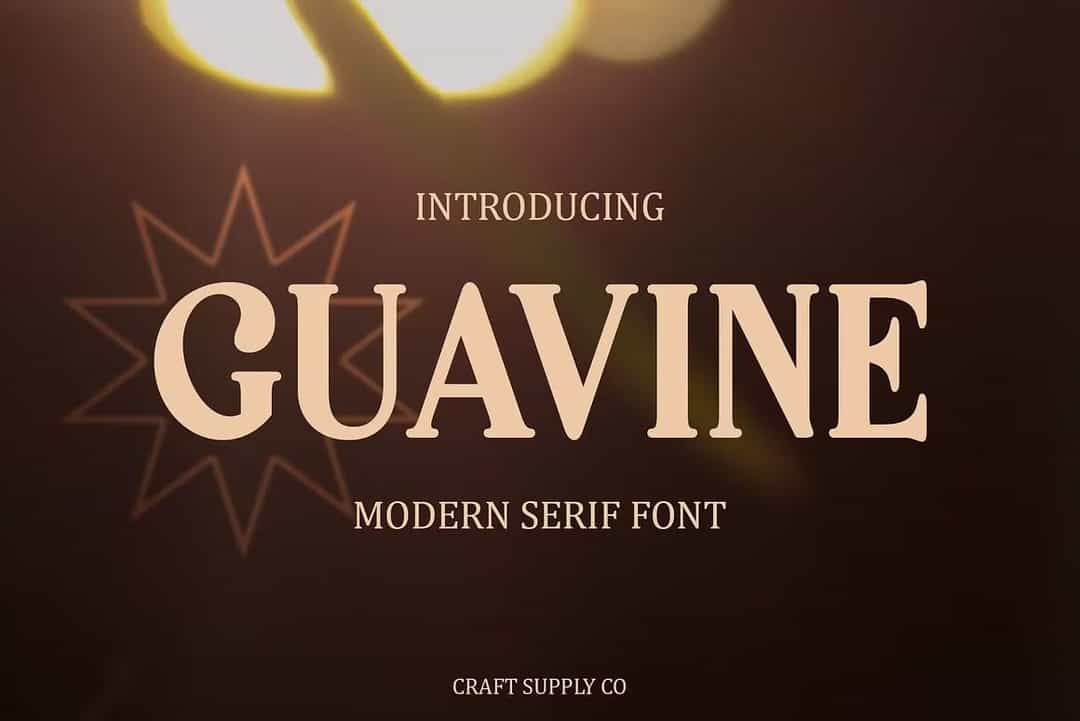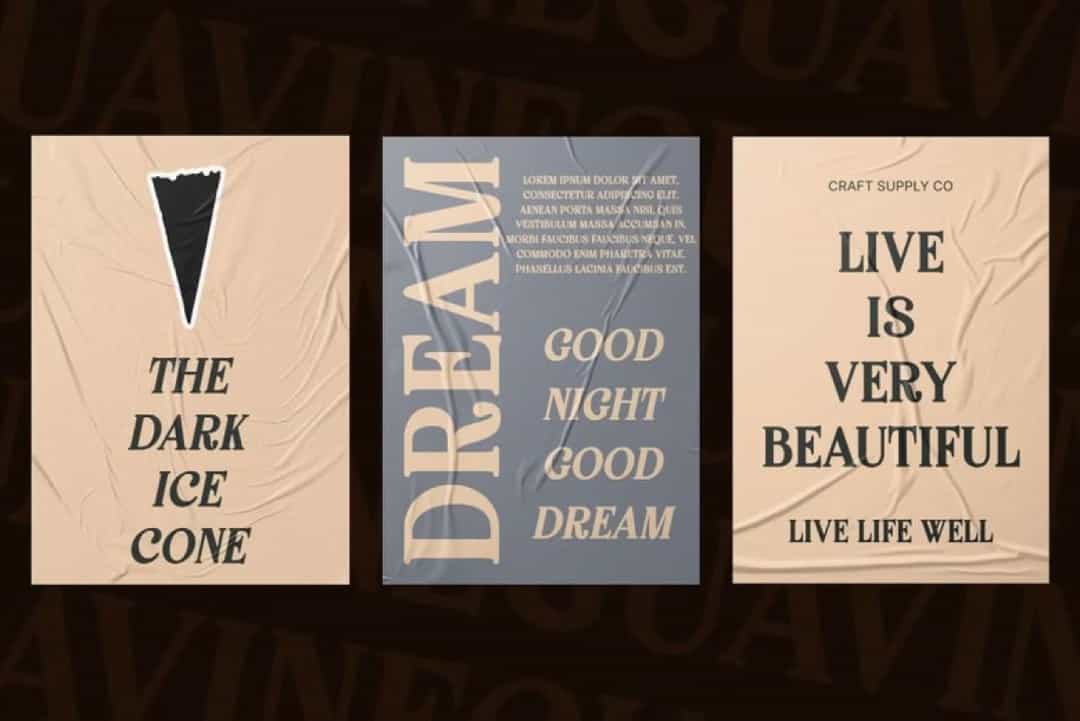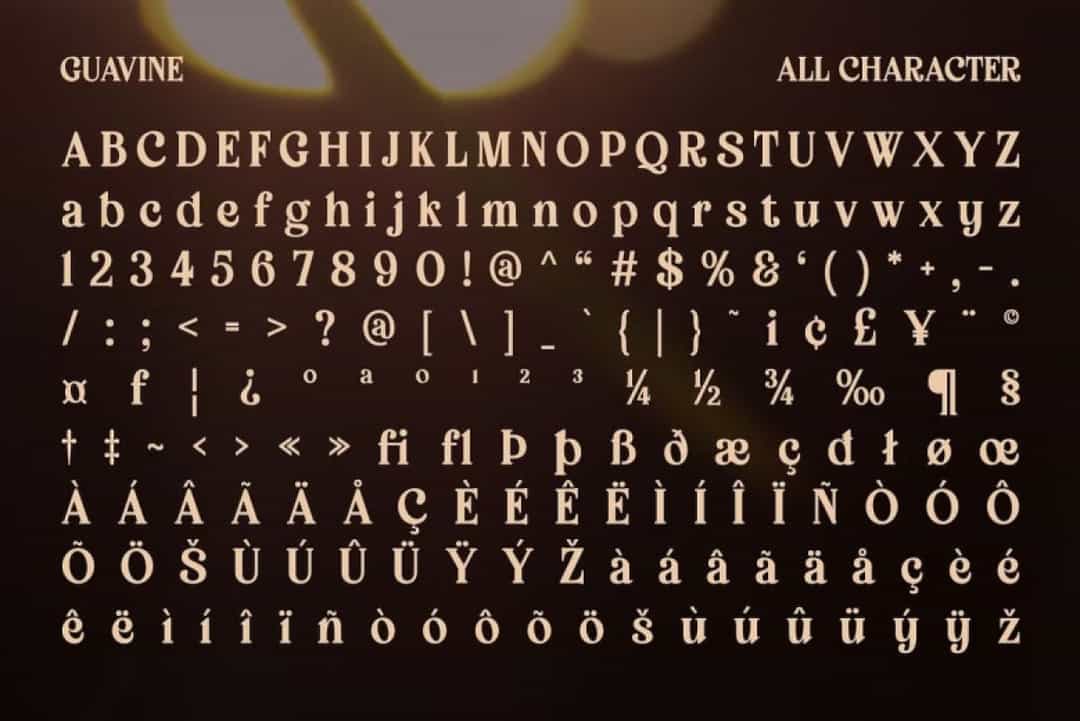
Discover Guavine Font, part of the Serif collection—a versatile and unique font perfect for adding a personal touch to your projects. Download it for free and enjoy crafting designs with style, from invitations to social media posts. This font is available exclusively for personal use, giving you the freedom to create without limits. Unlock your creativity with Guavine Font today!
Guavine epitomizes classic serif subtleties, creating an atmosphere of timeless beauty and style in every individual who sees its serif font design. Guavine radiates class and sophistication. The font chosen has moderate contrast. This font strikes an excellent balance between readability and style design; adding dimension and depth without compromising accessibility.